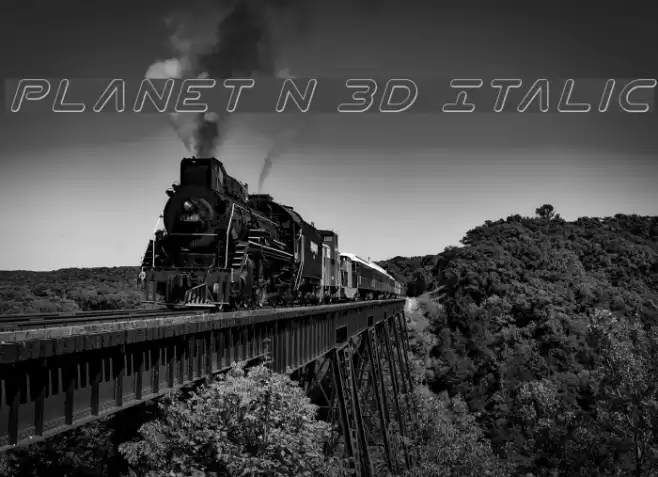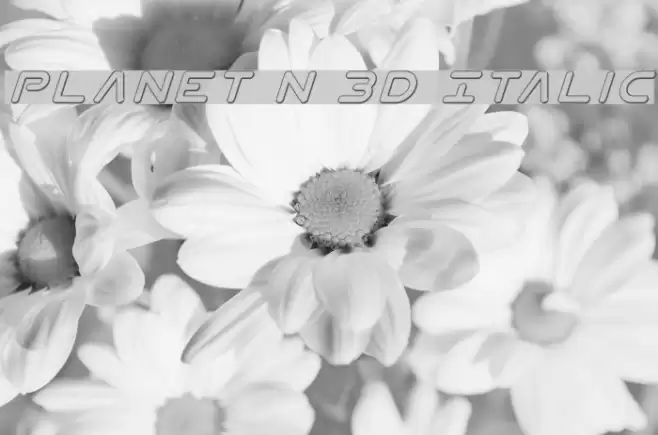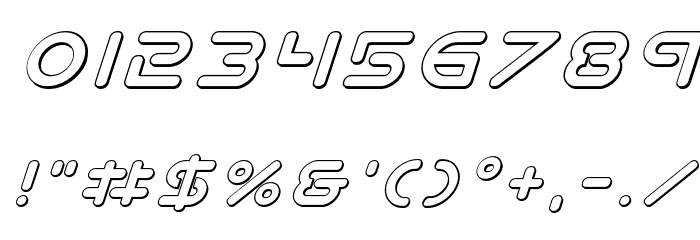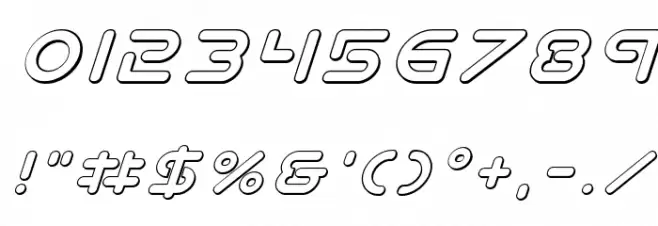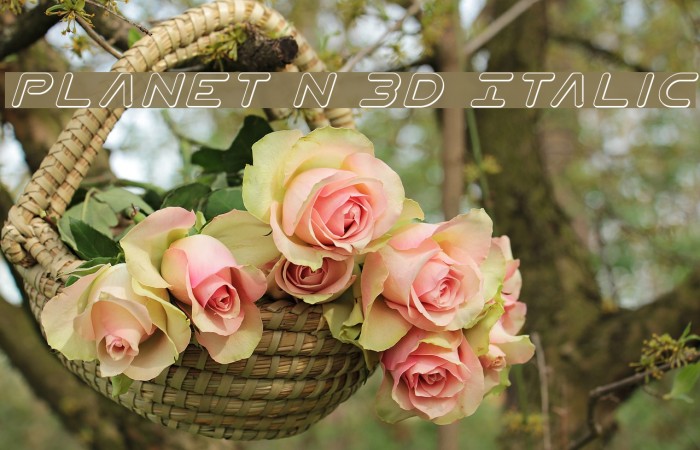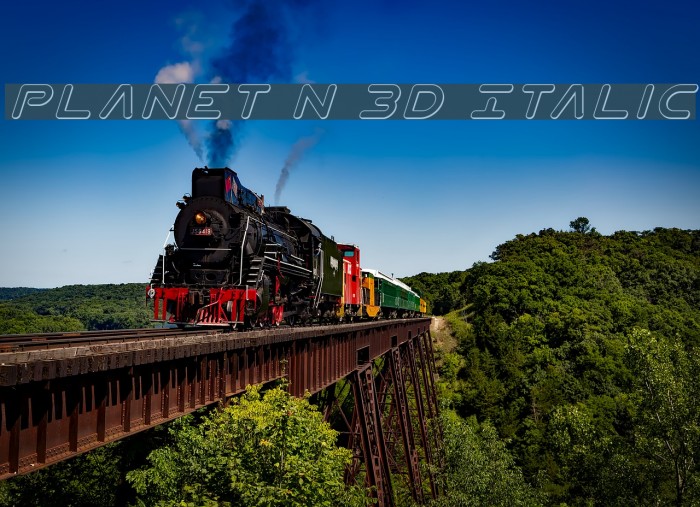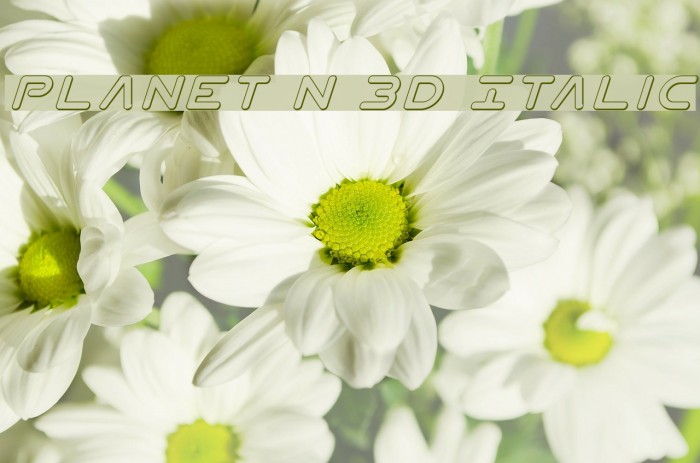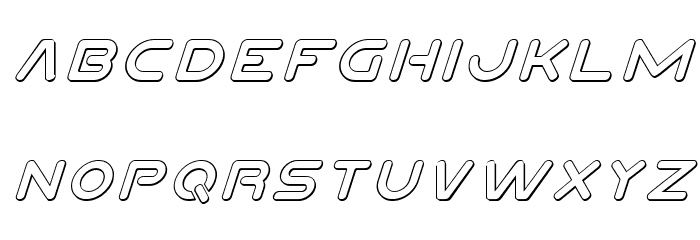
Planet N 3D Italic Font
Planet N 3D Italic Description
This font features a futuristic and dynamic design with a 3D effect that gives it a sense of depth and movement. The characters are outlined, providing a hollow appearance that enhances the three-dimensional look. Each letter is slightly italicized, adding a forward-leaning posture that suggests speed and modernity. The font maintains a consistent stroke width, contributing to its clean and uniform appearance. The rounded edges and smooth curves of the letters provide a friendly and approachable feel, while the geometric shapes lend a sense of precision and technology. This font is particularly eye-catching and suitable for projects that require a contemporary and innovative aesthetic.
A futuristic, 3D outlined font with italicized, geometric characters from Sci-fi fonts.
- Proposed Projects: Ideal for technology branding, sci-fi movie posters, video game titles, and modern advertising campaigns.